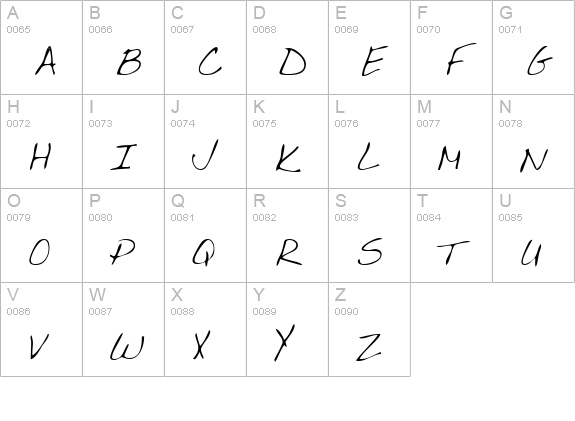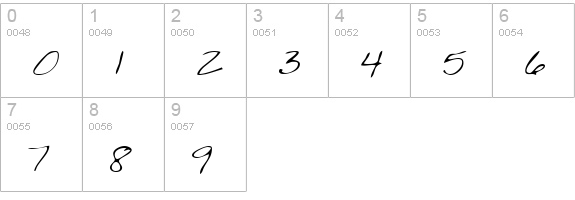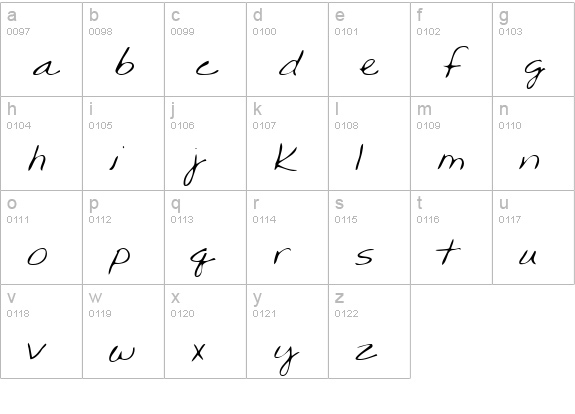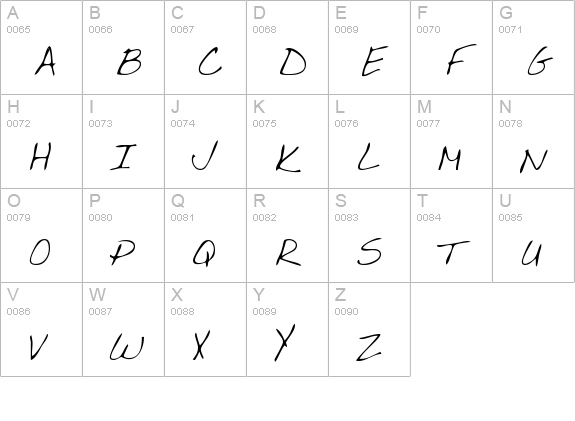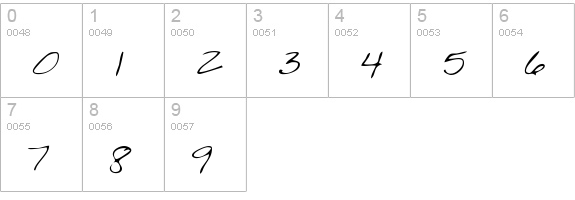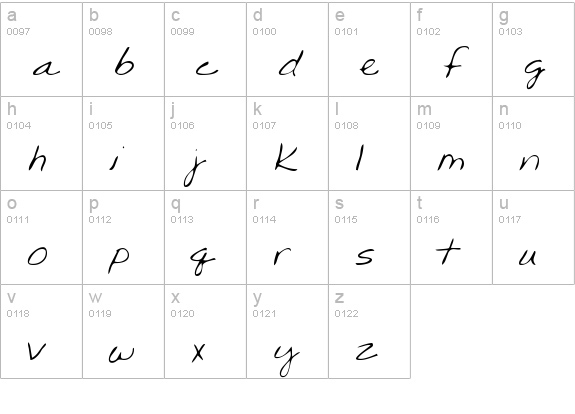
MyrasHand Regular Font Details
MyrasHand Regular is the standard, neutral variant in the MyrasHand typeface family \xE2\x80\x94 well suited to general body text, paragraphs, and standard typographic work.
MyrasHand Regular font is a charming and elegant typeface that exudes a sense of handwritten warmth and personality. With its flowing strokes and delicate curves, this font is perfect for adding a touch of creativity and whimsy to any project. Whether you're designing greeting cards, invitations, or social media graphics, MyrasHand Regular will bring a unique and handmade feel to your work. Best of all, MyrasHand Regular is available for free download at FontsMarket.com. This means you can easily access this beautiful font and use it in your projects without any cost. Don't miss out on this opportunity to add a touch of handmade charm to your designs with MyrasHand Regular font. Download it today and let your creativity shine!